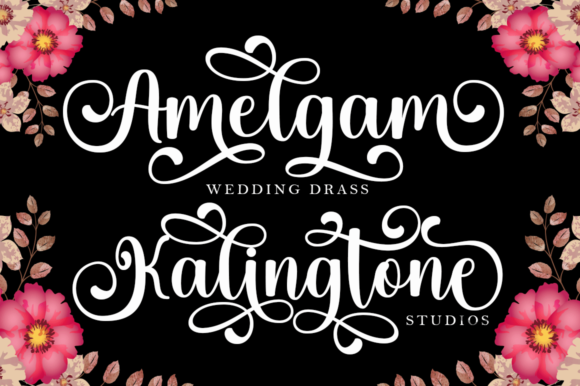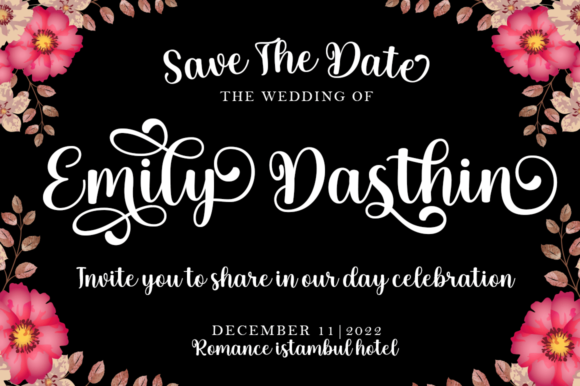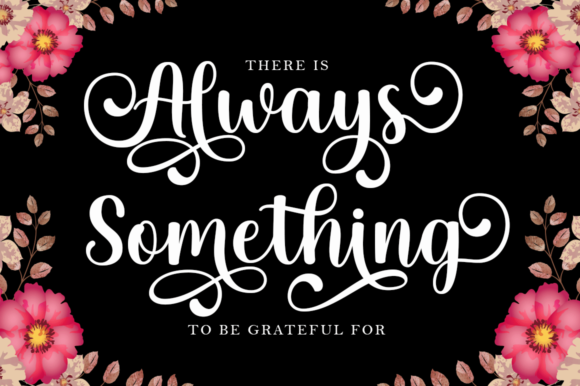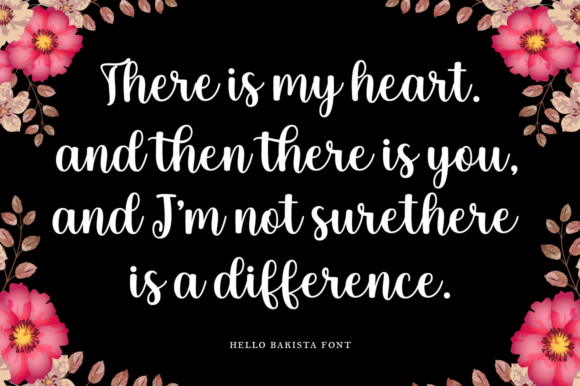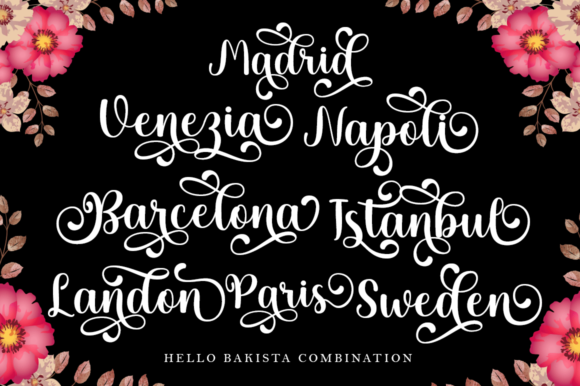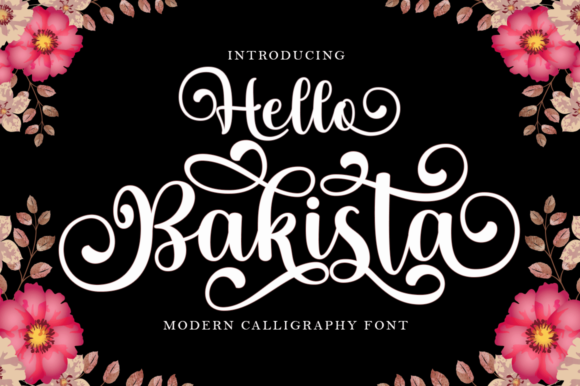
Hello Bakista Script Font: Elevate Your Designs with Elegance and Sophistication
Are you looking for a font that can add a touch of elegance and sophistication to your designs? Look no further than the Hello Bakista Script Font. This modern handwritten font is perfect for designers and crafters who want to create stunning visual content that stands out from the crowd. In this article, we’ll explore the features and benefits of Hello Bakista Script Font and how it can elevate your designs to the next level.
What is Hello Bakista Script Font?
Hello Bakista Script Font is a modern handwritten font that features a varied baseline and smooth characters. Its classic and elegant aesthetic makes it suitable for use on various designs, including headings, signatures, logos, wedding invitations, t-shirts, letterheads, signage, labels, news, posters, badges, and more. This font is perfect for designers who want to add a personal touch to their work and create a lasting impression on their audience.
Key Features of Hello Bakista Script Font
- Modern Handwritten Style: Hello Bakista Script Font features a modern handwritten style that is both elegant and sophisticated.
- Varied Baseline: The font’s varied baseline gives it a natural and fluid look that is perfect for creating headings, titles, and other design elements.
- Smooth Characters: The font’s smooth characters ensure that your designs look clean and professional, even at small sizes.
- PUA Encoded: Hello Bakista Script Font is PUA encoded, which means you can access all of the glyphs and swashes with ease.
- Versatile: This font is versatile and can be used on a wide range of designs, from wedding invitations to t-shirts, and from logos to signage.
Benefits of Using Hello Bakista Script Font
There are many benefits to using Hello Bakista Script Font in your designs. Here are a few:
- Adds Elegance and Sophistication: This font adds a touch of elegance and sophistication to your designs, making them perfect for formal events, business branding, and more.
- Stand Out from the Crowd: Hello Bakista Script Font is unique and distinctive, ensuring that your designs stand out from the crowd and grab the attention of your audience.
How to Use Hello Bakista Script Font
Using Hello Bakista Script Font is easy. Here are a few tips to get you started:
- Pair it with Other Fonts: Pair Hello Bakista Script Font with other fonts to create a unique and eye-catching design.
- Use it for Headings and Titles: Use this font for headings and titles to add a touch of elegance and sophistication to your designs.
- Add Swashes and Glyphs: Use the font’s swashes and glyphs to add a personal touch to your designs and make them more interesting.
- Experiment with Different Colors: Experiment with different colors to find the perfect combination that works for your design.
Hello Bakista Script Font is a modern handwritten font that is perfect for designers and crafters who want to add a touch of elegance and sophistication to their designs. With its varied baseline, smooth characters, and PUA encoding, this font is easy to use and versatile. Whether you’re creating headings, signatures, logos, or wedding invitations, Hello Bakista Script Font is the perfect choice. So why wait? Download Hello Bakista Script Font today and elevate your designs to the next level!